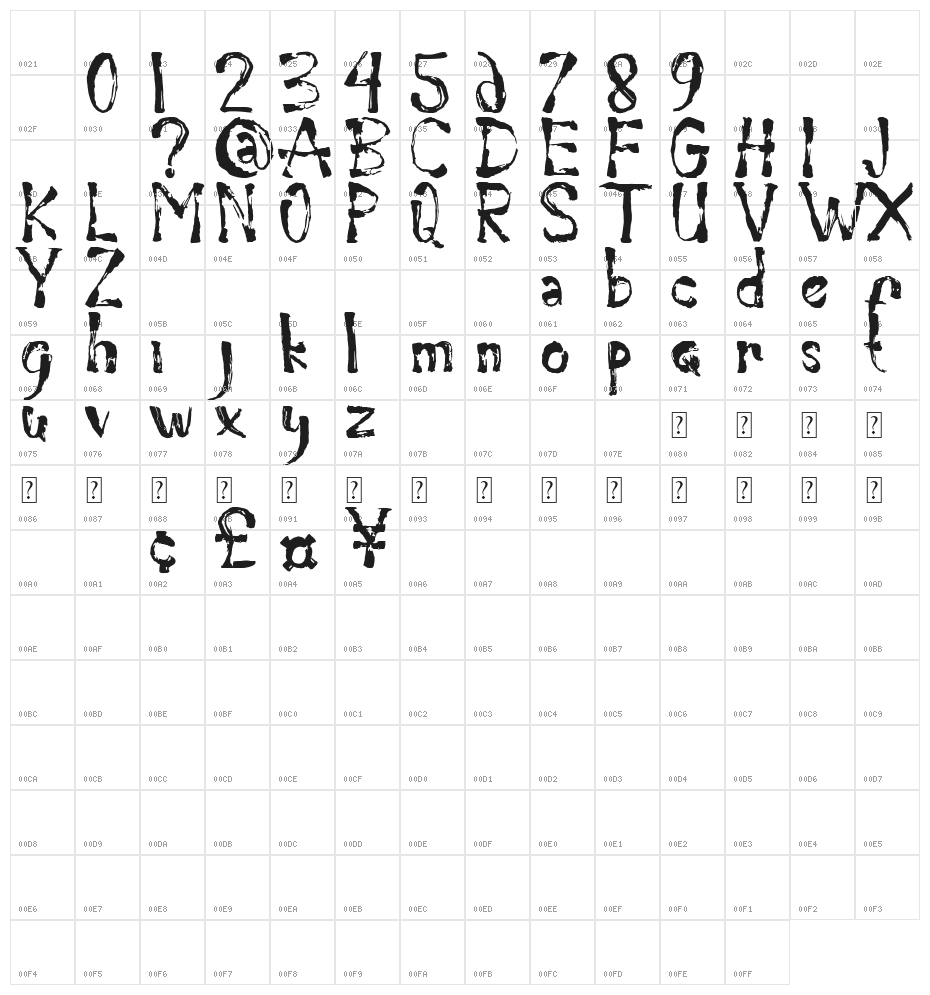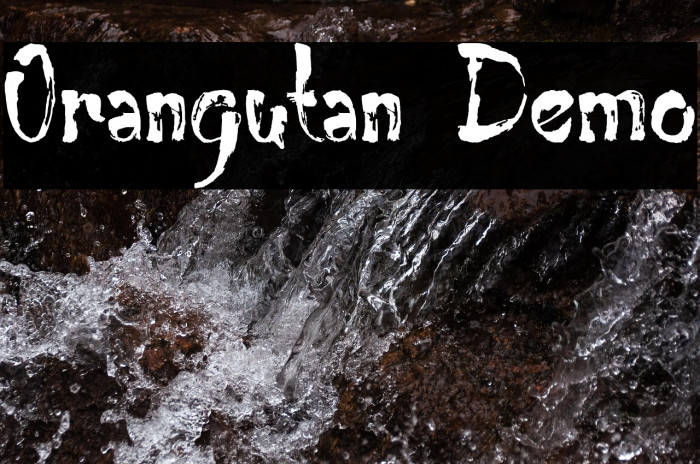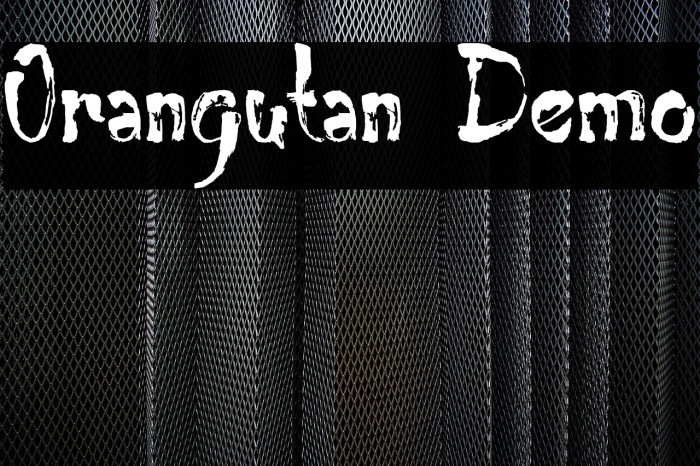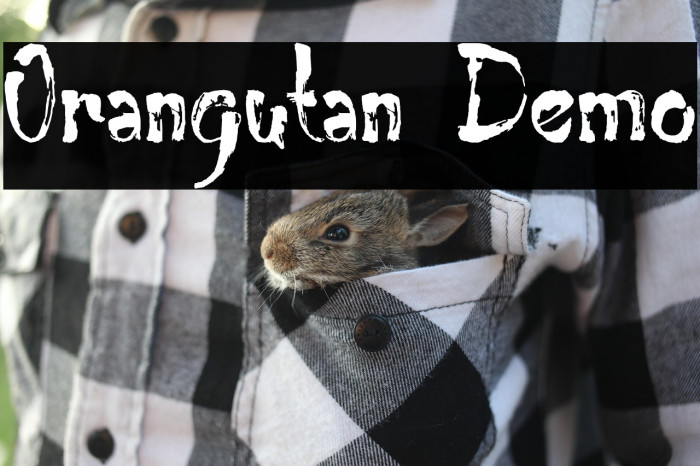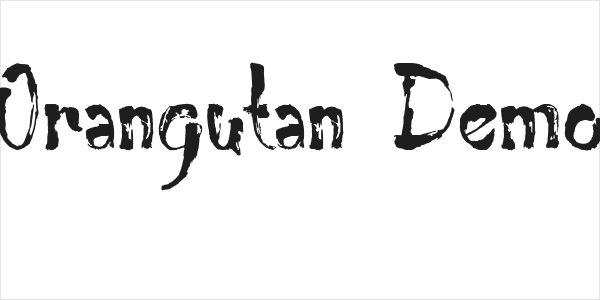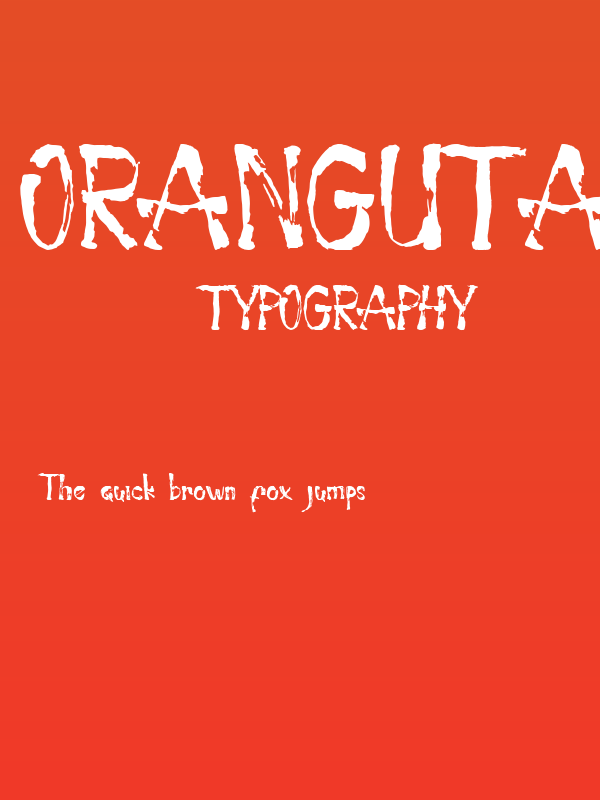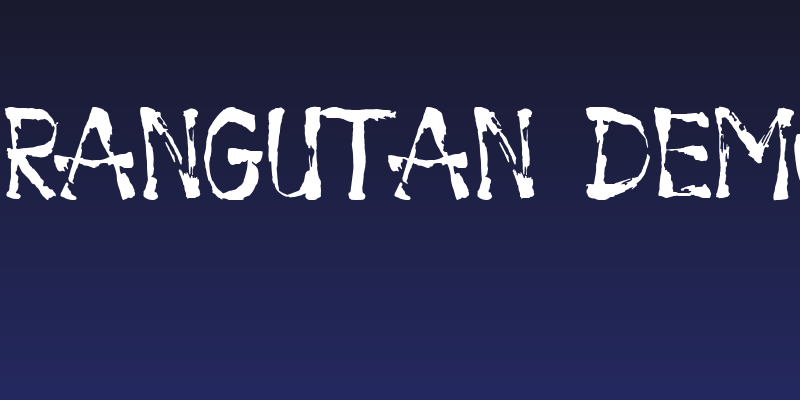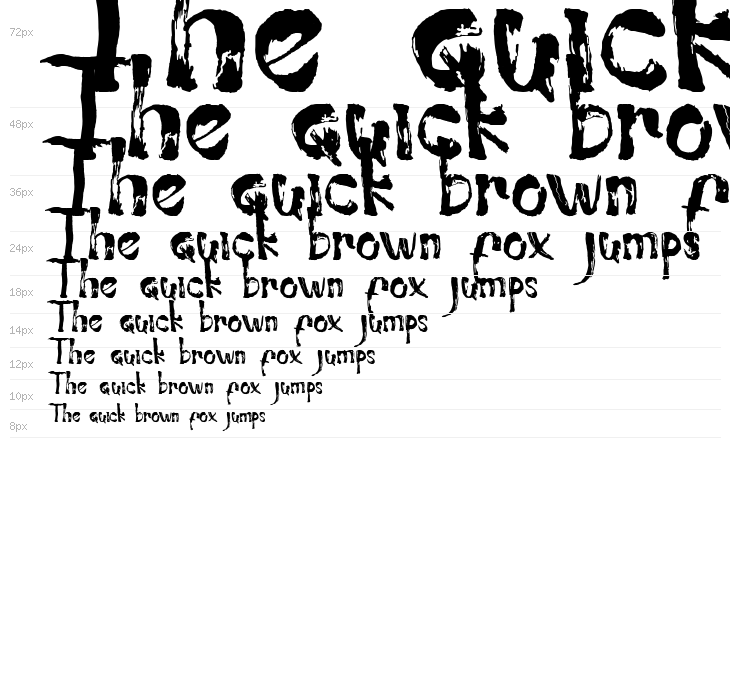
Orangutan Demo Font
Orangutan Demo Description
This font exhibits a bold and expressive style, characterized by its rough, hand-drawn appearance. The letters have an uneven, organic texture, giving them a raw and dynamic feel. The uppercase and lowercase letters maintain a consistent style, with varying stroke thickness that adds to the font's energetic and spontaneous look. The numbers and special characters follow the same aesthetic, ensuring a cohesive design throughout. This font's unique, artistic flair makes it stand out, ideal for projects that require a touch of creativity and individuality.
Proposed ProjectsPerfect for artistic posters, album covers, creative branding, and any project needing a bold, unique touch.